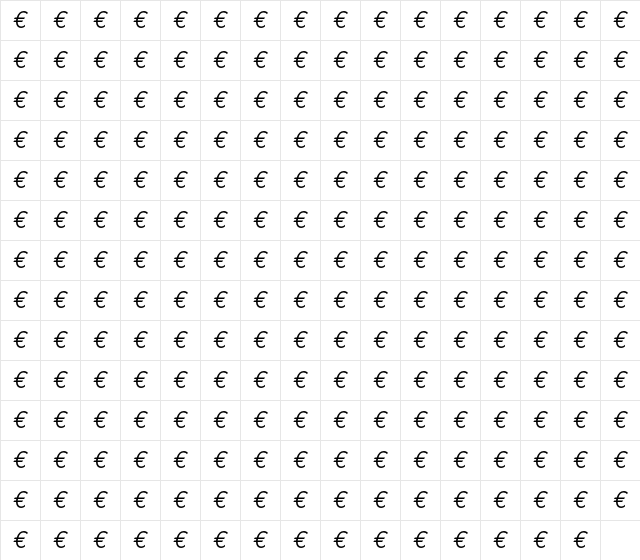
Euro Mono Italic
Design Context for Euro Mono Typeface
Euro Mono uses fixed-width spacing throughout, giving it the structured, systematic character associated with coding environments and technical documentation. Its italic angle brings a sense of urgency and motion to the letterforms.
A natural fit for code editors, technical documentation, developer-focused branding, and terminal-inspired UI.
Pro Tip: Pair Euro Mono with a proportional sans for UI contexts where code-style labels and regular body copy need to coexist.